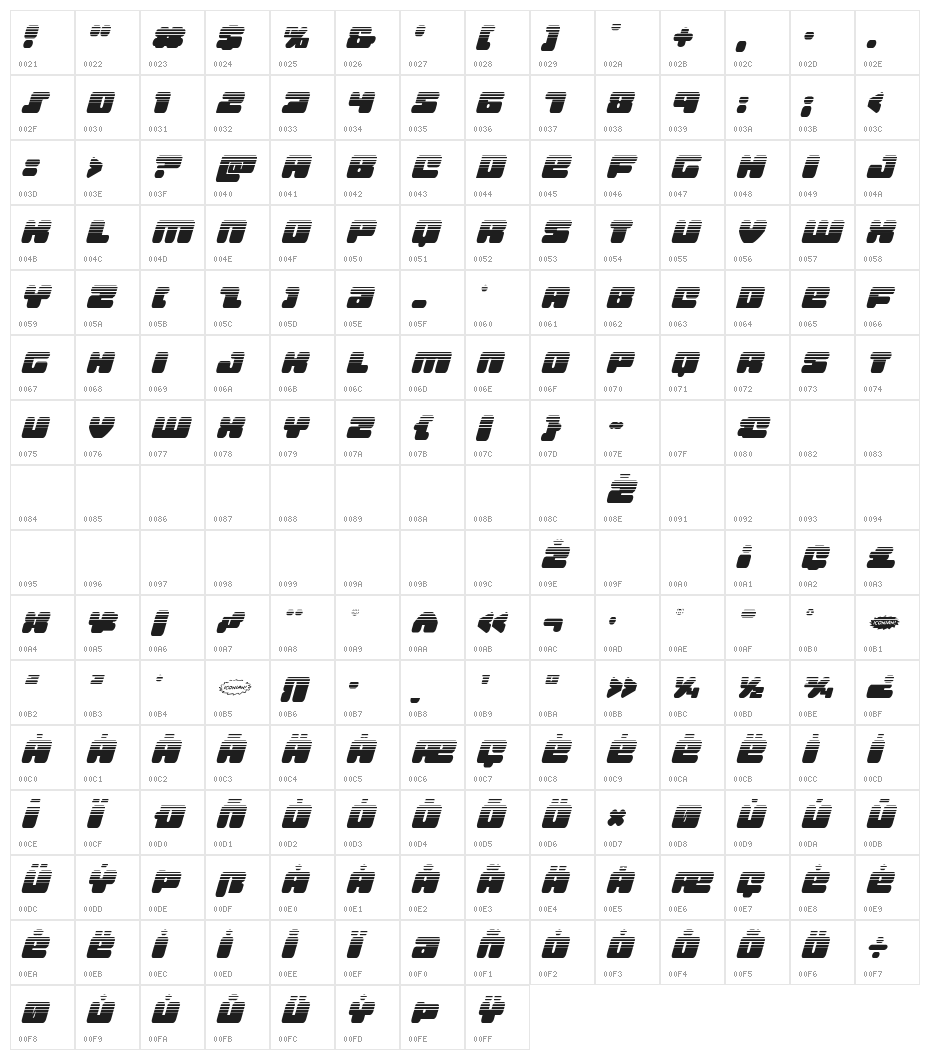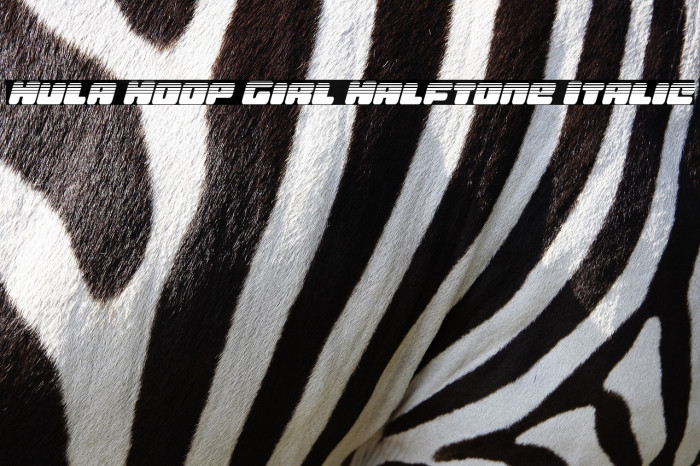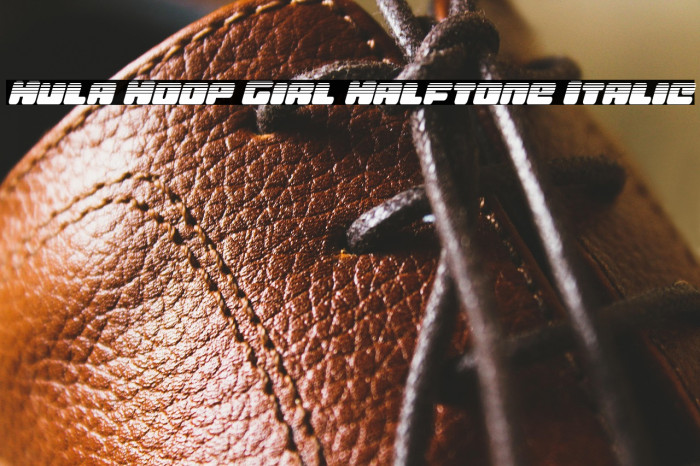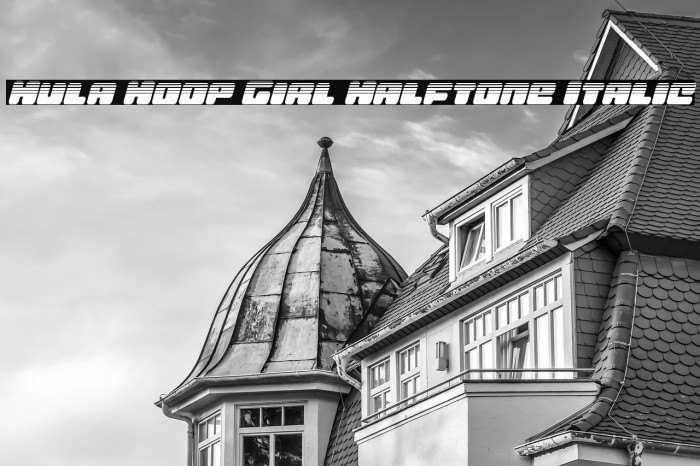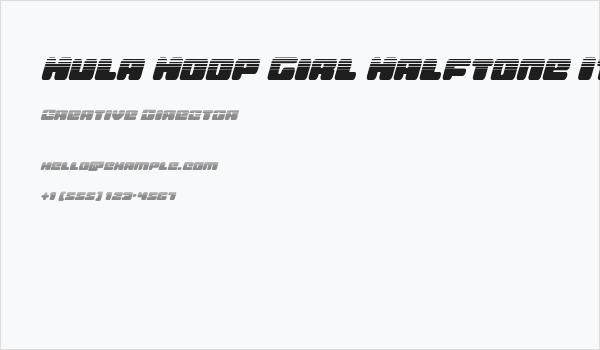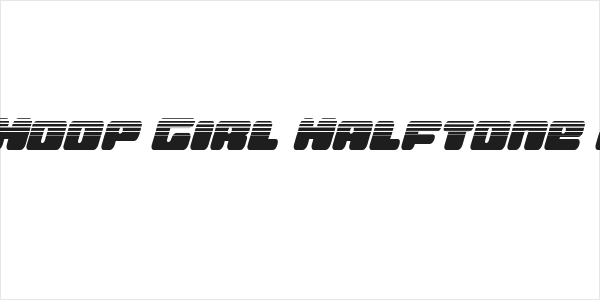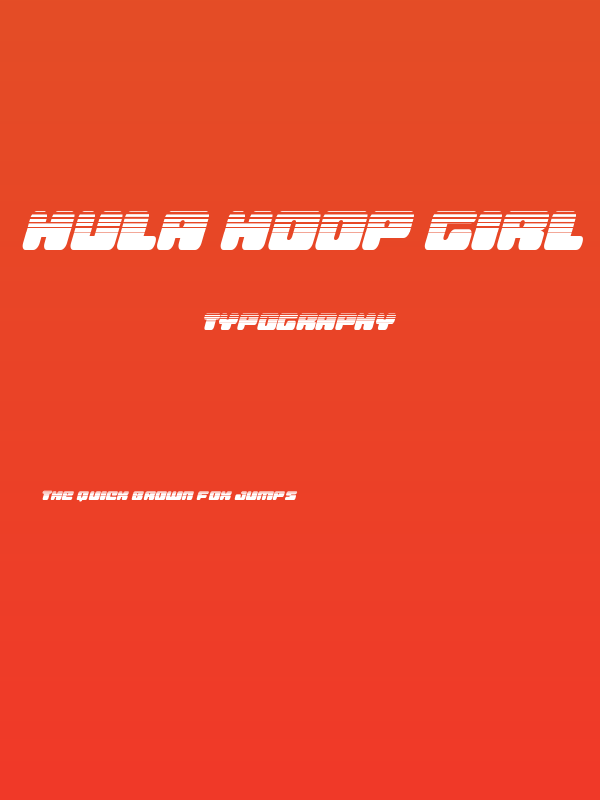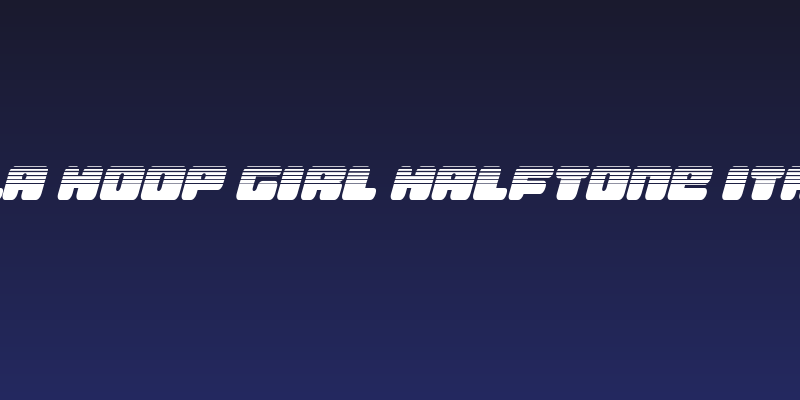
Hula Hoop Girl Halftone Italic Font
Hula Hoop Girl Halftone Italic Description
This font features a bold, dynamic design with a halftone effect that gives it a unique, futuristic appearance. The characters are italicized, adding a sense of motion and energy. The horizontal lines across each letter create a layered, textured look that stands out. The font is highly stylized, with each character maintaining a consistent width and boldness, making it suitable for eye-catching displays. The numbers and special characters follow the same design principles, ensuring uniformity across all elements.
| Overall Style | Futuristic, Dynamic |
| Proposed Projects | Ideal for projects requiring a modern, dynamic look such as tech branding, sports event posters, or sci-fi themed designs. |